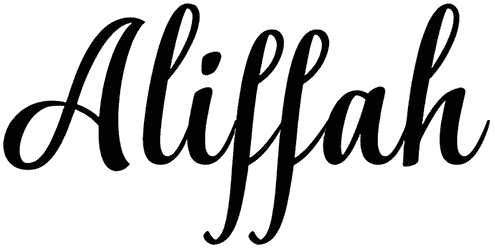
It is time to have excellent handwriting and script fonts like the Aliffah font. In this font, significant characters with swashes create a very suitable combination.
Among the uses of this calligraphy font, we can mention the design of wedding invitation cards, birthday parties, many luxury brands, and even plan for packages of cosmetic brands. So it is better to put this font in your download list as soon as possible to use it in the next projects.